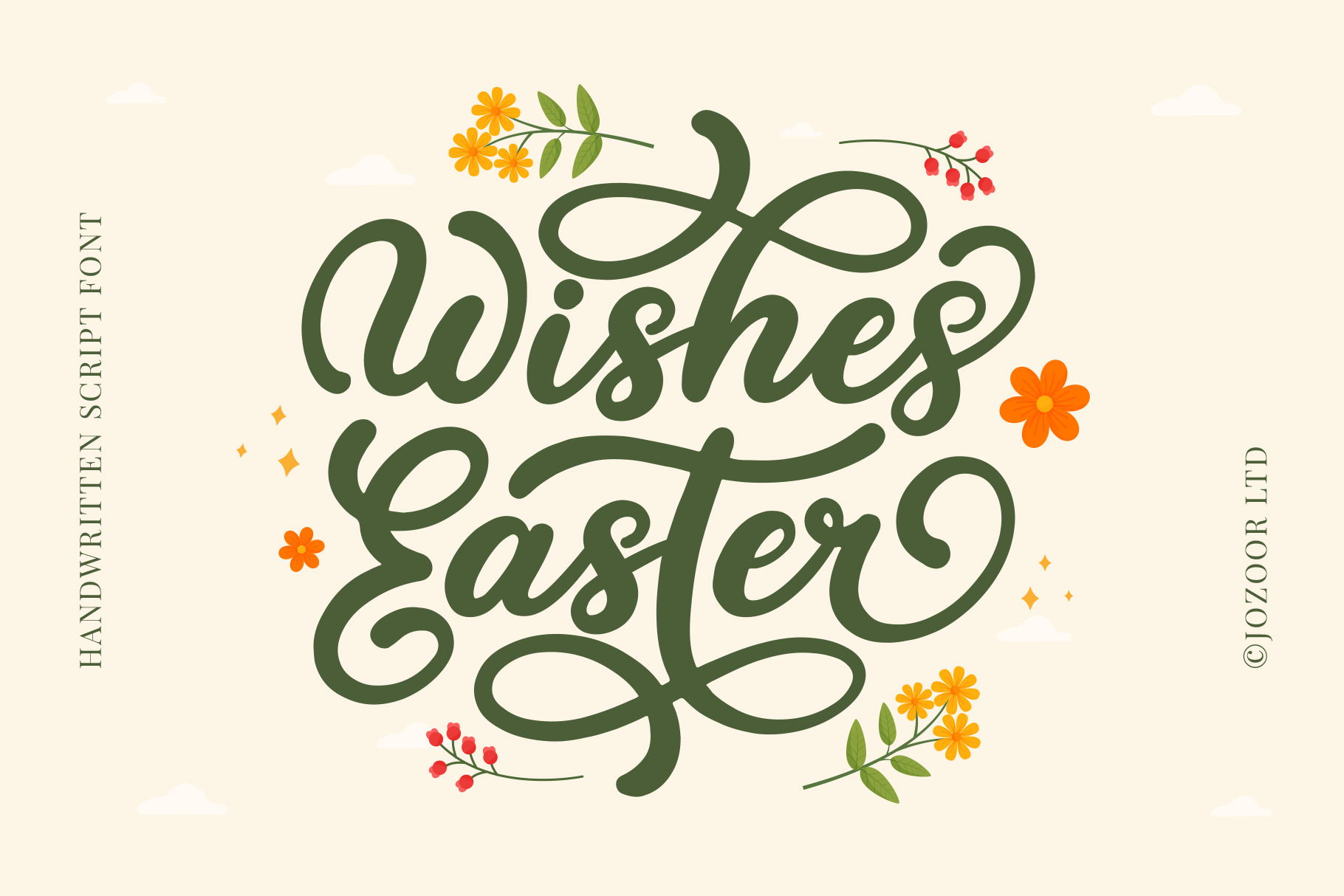
Wishes Easter is a stylish, delicate, elegant, and flowing handwritten script font. It has beautiful and well-balanced characters and as a result, it matches a wide pool of designs. Add it to your most creative ideas and notice how it makes them come alive!